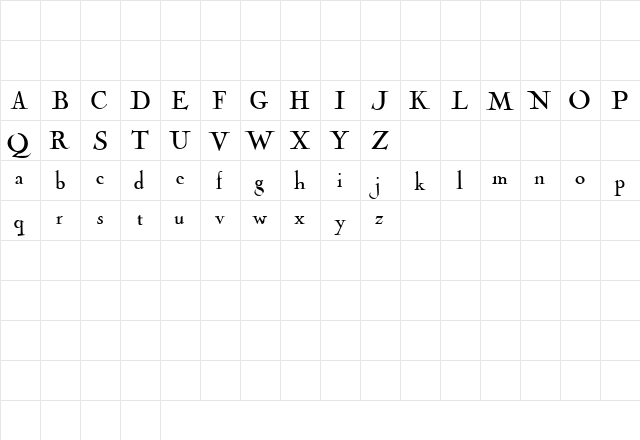
CochinArchaic Regular
Design Context for CochinArchaic Typeface
CochinArchaic is a composed and adaptable typeface that performs quietly and consistently across a wide range of design contexts.